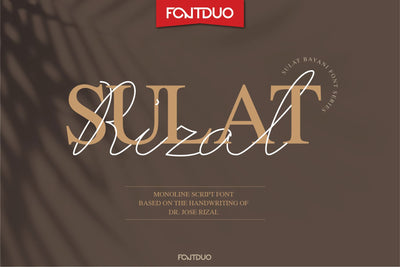
Sulat Rizal Script Handwritten Font
Sulat Rizal is a delicate and stylish script font. No matter the topic, this font will be an incredible asset to your fonts’ library, as it has the potential to elevate any creation.